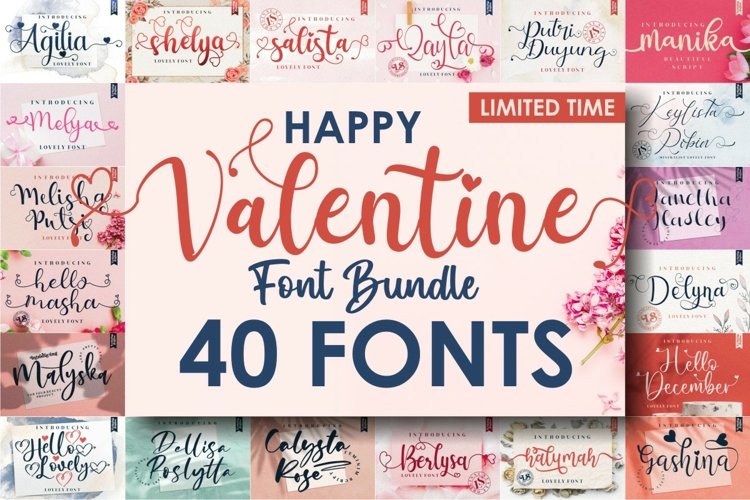
This set includes 40+ typefaces
This bundle is perfect for many different projects such as valentines, weddings, design, branding, logos, invitation, stationery, social media posts, advertisements, product packaging, product designs, label, photography, watermark, special events, or anything.